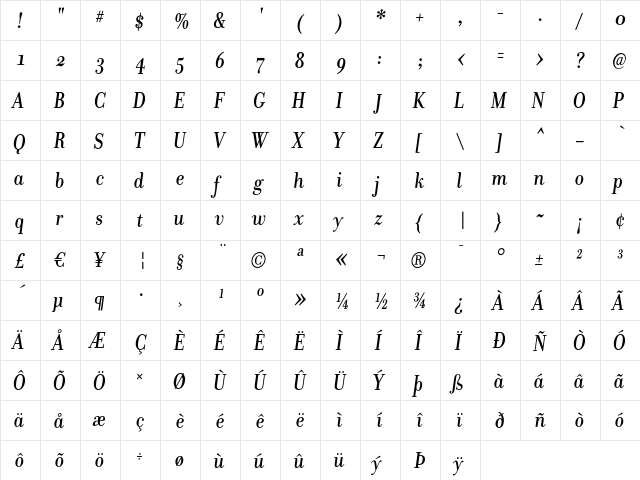
DonatoraMediumOSF Italic Font Preview
DonatoraMediumOSF Italic
Design Context for DonatoraMediumOSF Typeface
DonatoraMediumOSF offers clean, dependable letterforms without strong stylistic allegiance, making it a practical choice for designers who need flexibility. The dynamic lean of this cut emphasises speed and emphasis in any layout.